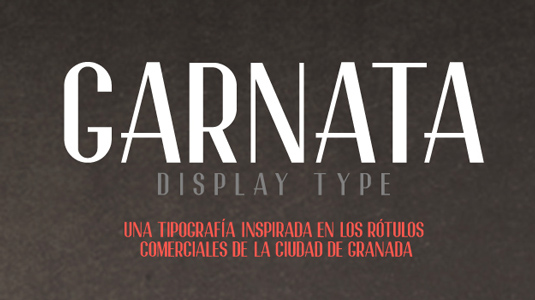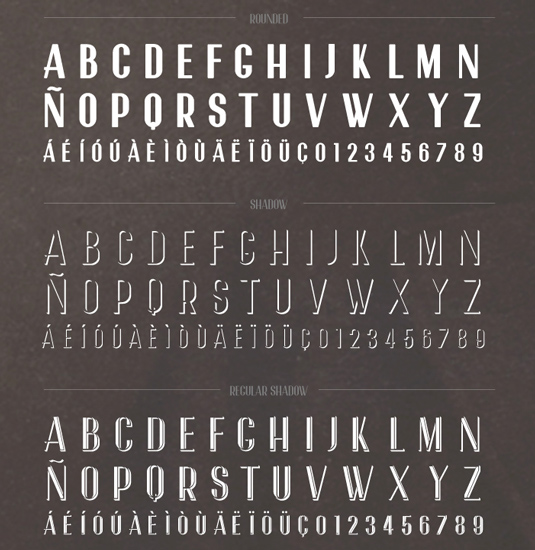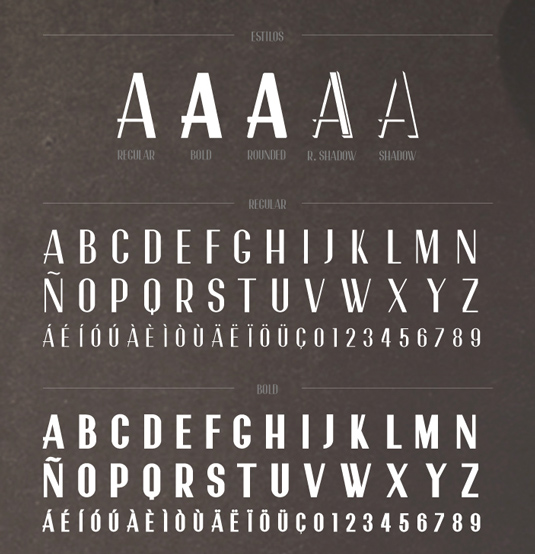
Font of the day: Garnata
Every day we showcase the best fonts on the web. Today it's Garnata by Nano Torres and JuanJo Rivas Del Rio, which is free in exchange for a tweet.
Garnata by Nano Torres and JuanJo Rivas Del Rio
Today's font of choice was created by Spanish designers Nano Torres and JuanJo Rivas Del Rio. Inspired by the commercial names of the city of Granada, the font family includes five styles; regular, bold, rounded, shadow and regular shadow.